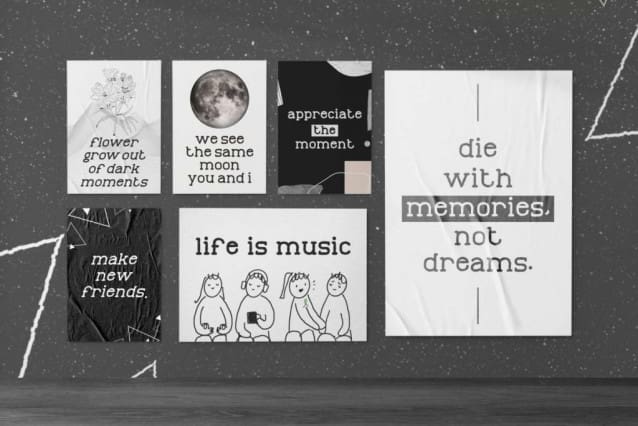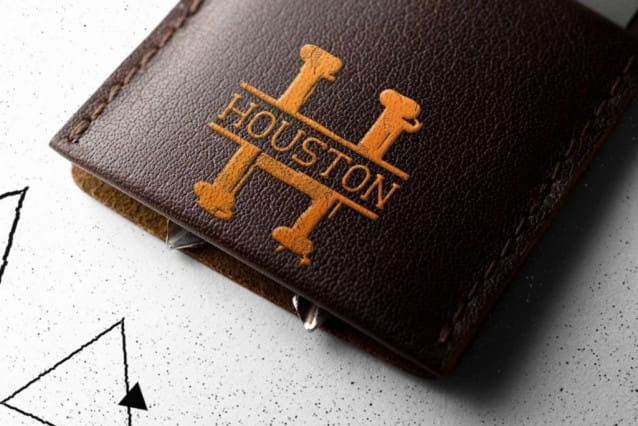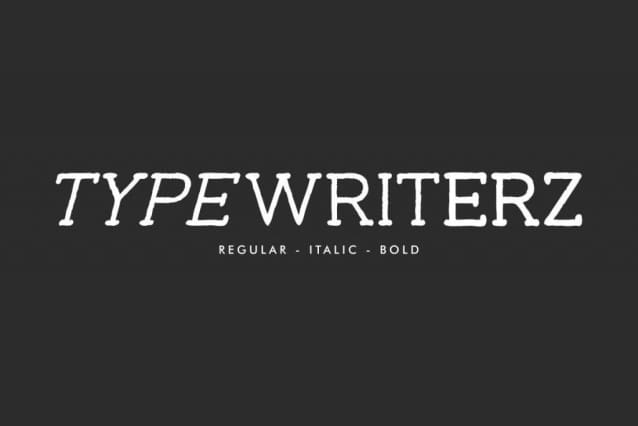
Typewriterz Font
Typewriterz Font is an awesome typewriter font. It has a great vintage touch while still has good readability. This unique typewriter font design, great for mimicking the effect of type writing older machines. It comes with three styles regular, italic and bold. The font will be great for any project in between are : fashion, book story, novel, games, quotes, brands, movies, and many more!
Typewriterz Font fits perfectly into those nostalgic mood boards and vintage logos. With its three different styles, this font includes set of Uppercase Basic Characters, Numerals and Punctuation.